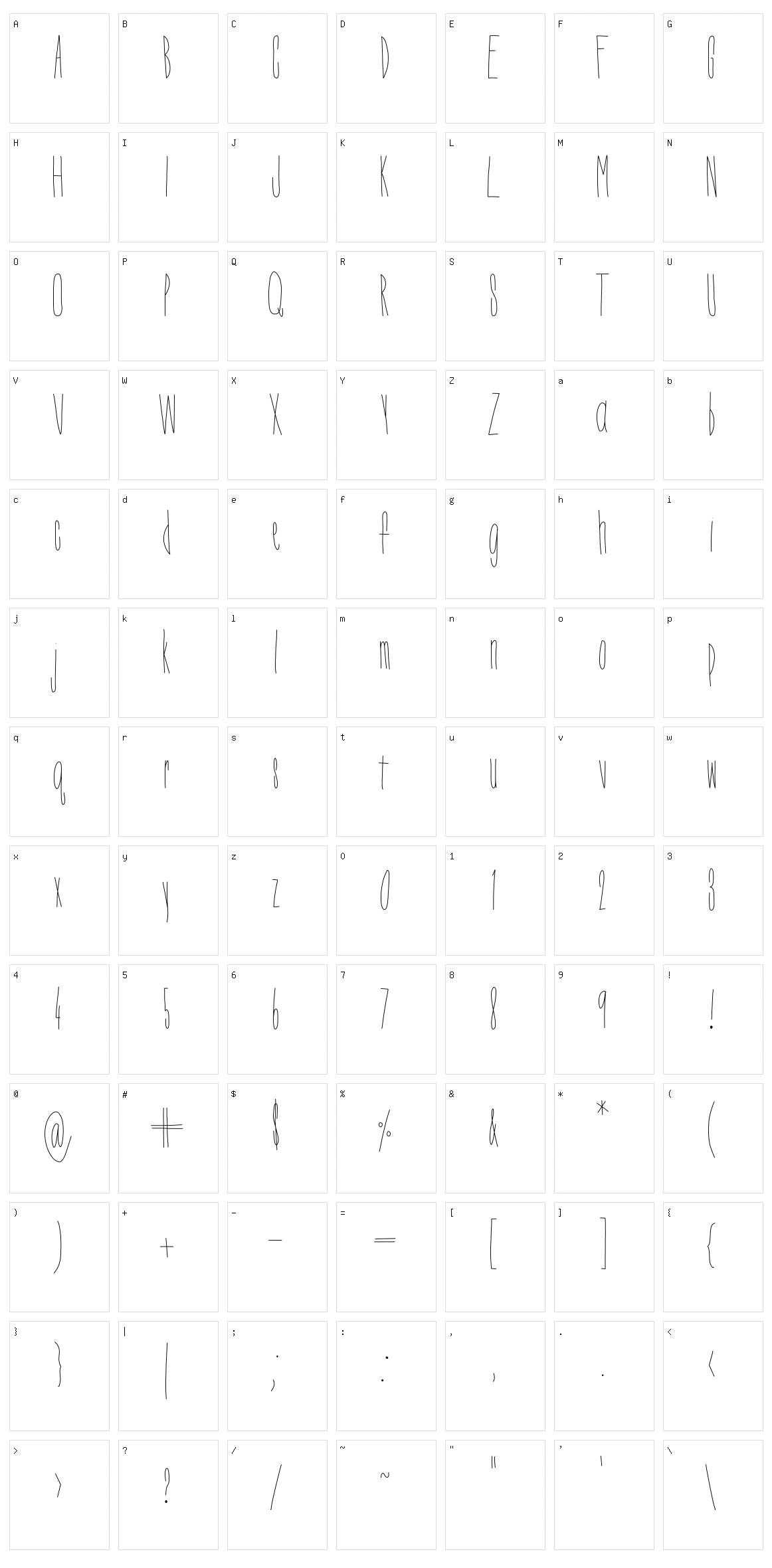
The free font Dorothy Miranda is carefully designed by Dominique Demetz, showcasing a thoughtful balance of creativity and usability and falls under the Script font style. When you download the ZIP file, it contains only 3967.92 KB of font files, making it lightweight and quick to download. Please review the license details below to understand permitted usage and distribution rights. If license information is not available, we recommend using this font for personal projects only or contacting the author directly for commercial usage permissions.